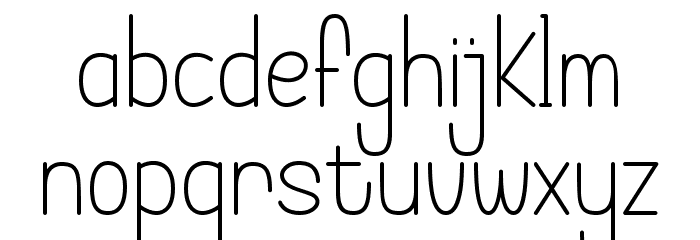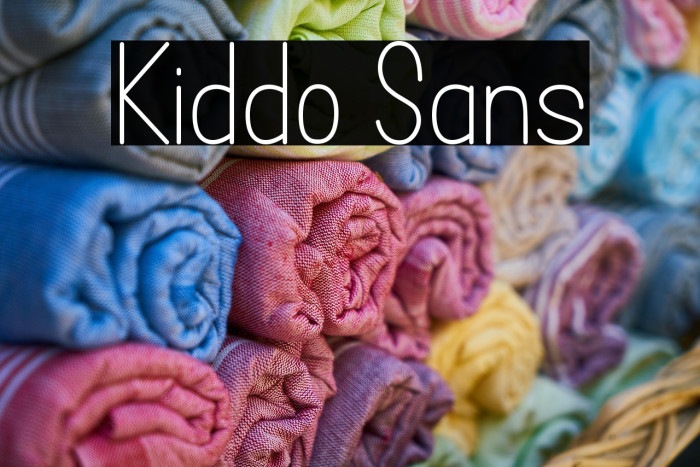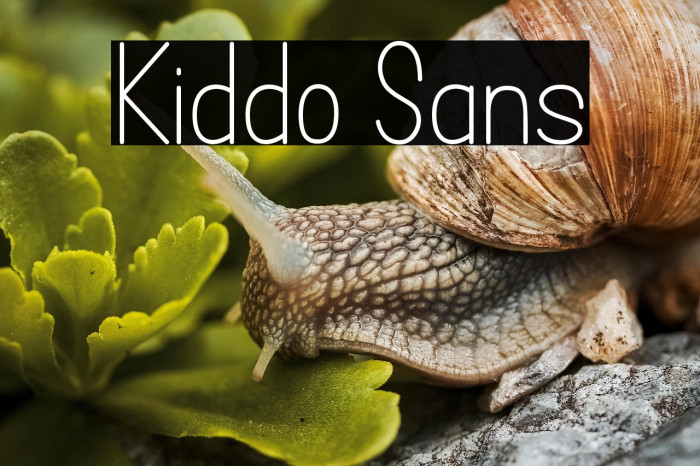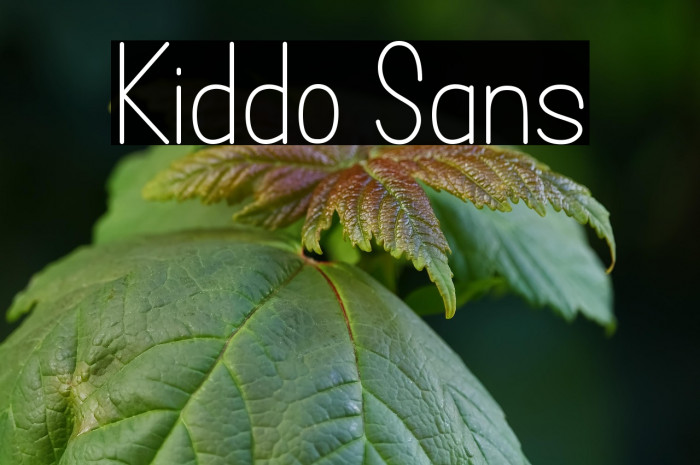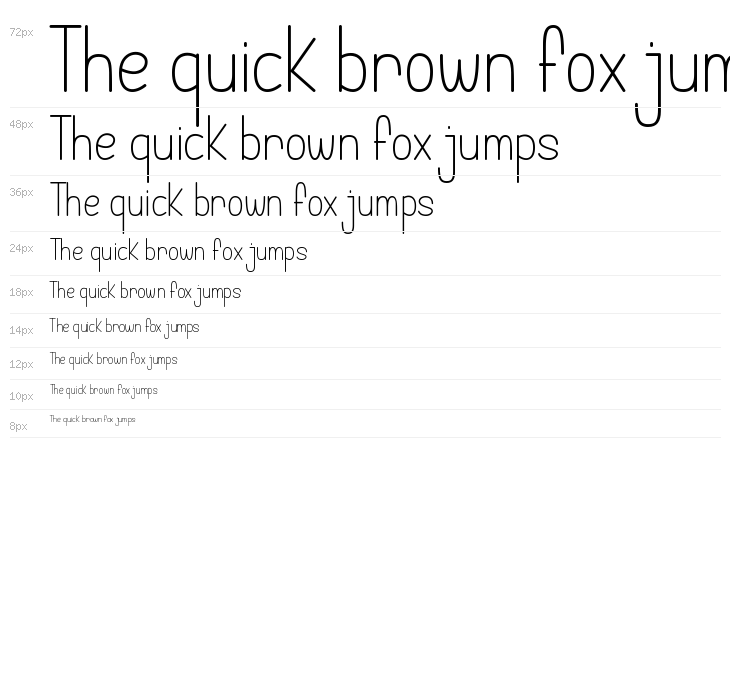
Kiddo Sans Font
This font features a playful and youthful design with a clean and simple sans-serif style. The characters are tall and narrow, giving a sense of elegance and modernity. The strokes are consistent in width, providing a uniform appearance across all letters and numbers. The rounded edges add a friendly and approachable feel, making it suitable for informal and fun projects. The spacing between characters is balanced, ensuring readability while maintaining its unique charm. This font is versatile, fitting well in both digital and print media, and can be used to convey a sense of lightheartedness and creativity.
A playful, modern sans-serif font with tall, narrow characters and rounded edges.
- Proposed Projects: Ideal for children's books, educational materials, playful branding, and creative digital content.
- Use Case: Headlines, Logos, Informal Text